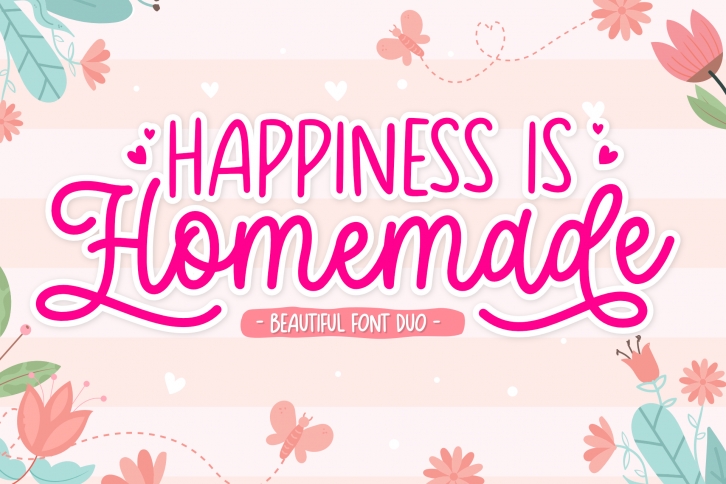
Happiness is Homemade is a warm and friendly duo font (sans serif and handwritten). This font is PUA encoded which means you can access all of the glyphs and swashes with ease! Fall in love with its dainty style and use it to create bright designs!